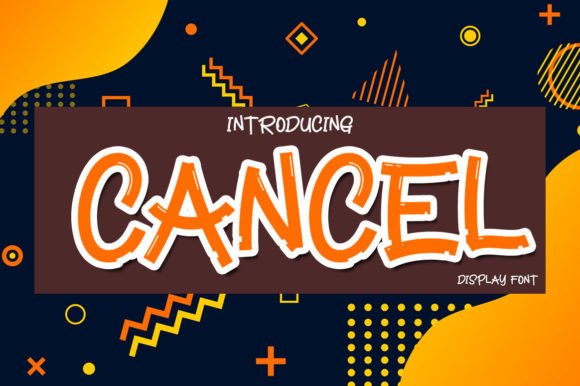
**Introducing Cancel Font – The Cinematic Masterpiece That Will Transform Your Designs**
Prepare to be mesmerized by Cancel Font, from the brilliant mind of Eddygoodboy, a display font family that will captivate your audience with its cinematic flair. This font's breathtaking curves and sharp edges will add an instant touch of drama to your projects, making them stand out from the crowd.
Immerse yourself in the world of cinema as Cancel Font transports you to a realm of storytelling, where every letter dances across the screen like an actor performing their lines. Its carefully crafted characters embody the essence of the silver screen, oozing with vintage charm and timeless elegance.
With Cancel Font, you'll discover a font that's both versatile and expressive. Its bold strokes and dynamic shapes make it the perfect choice for a variety of projects, from movie posters and film credits to retro-inspired designs and social media graphics. Let your creativity soar as you explore the limitless possibilities of this cinematic masterpiece.
But Cancel Font is more than just a beautiful face; it's a font that works hard for you. Its clean and legible design ensures that your message is crystal clear, while its subtle nuances add depth and personality to your work. Whether you're crafting a logo, designing a website, or creating social media content, Cancel Font will elevate your designs and leave a lasting impression on your audience.